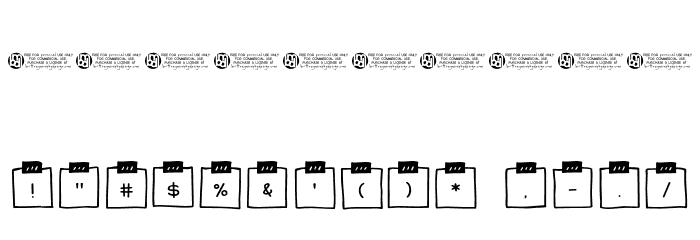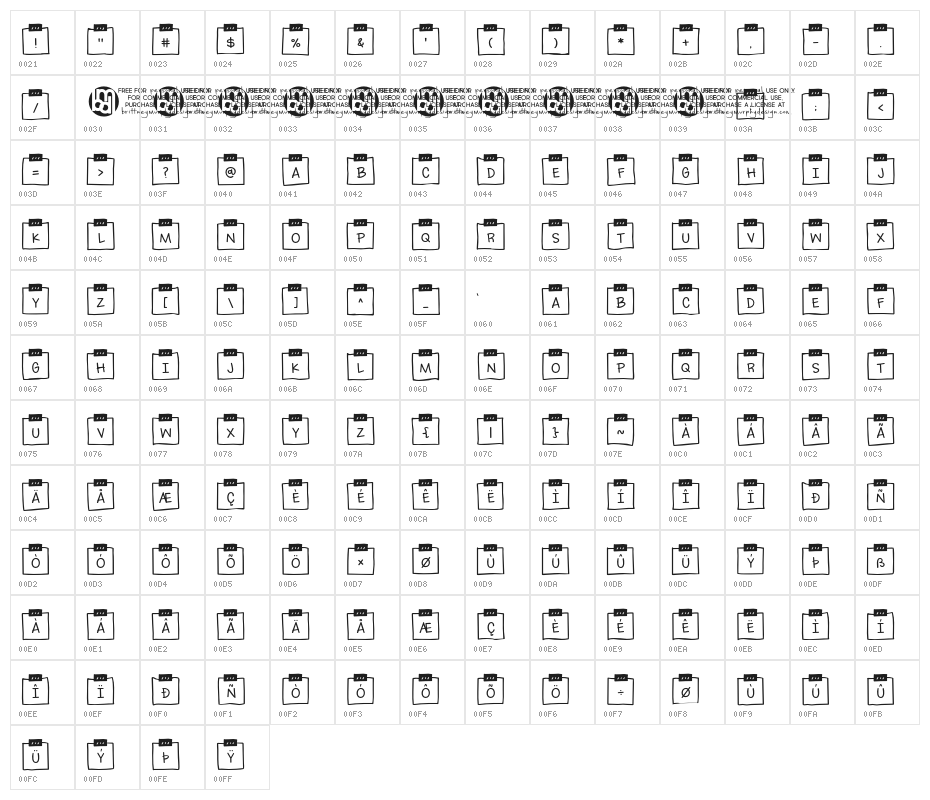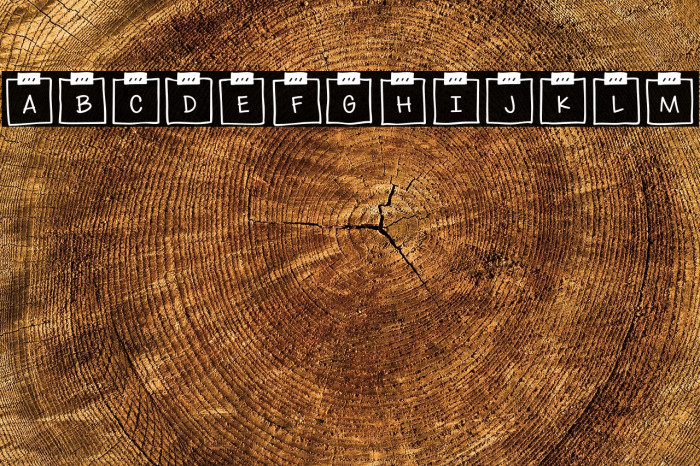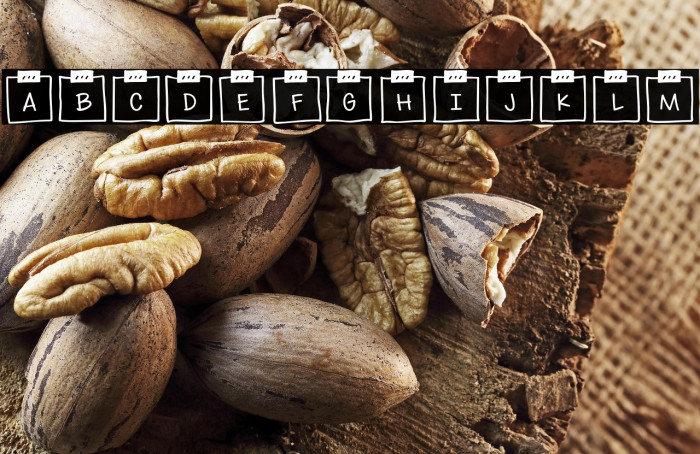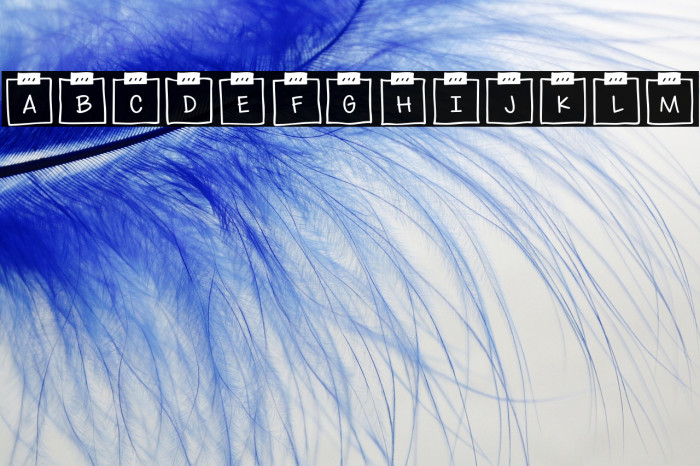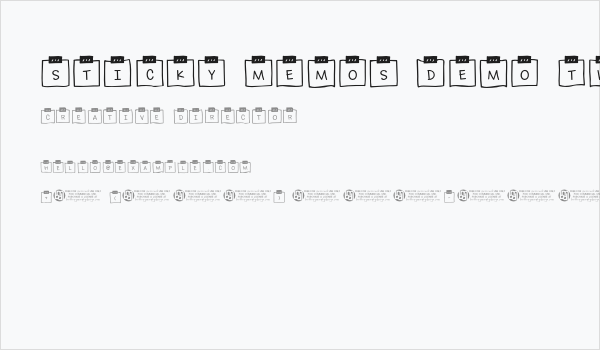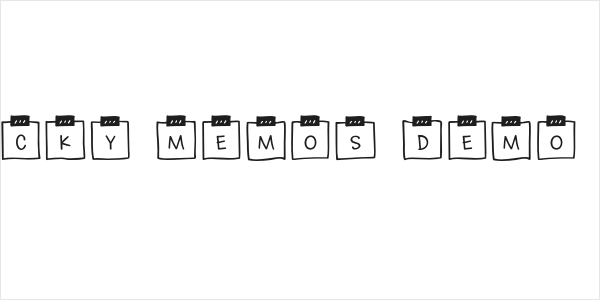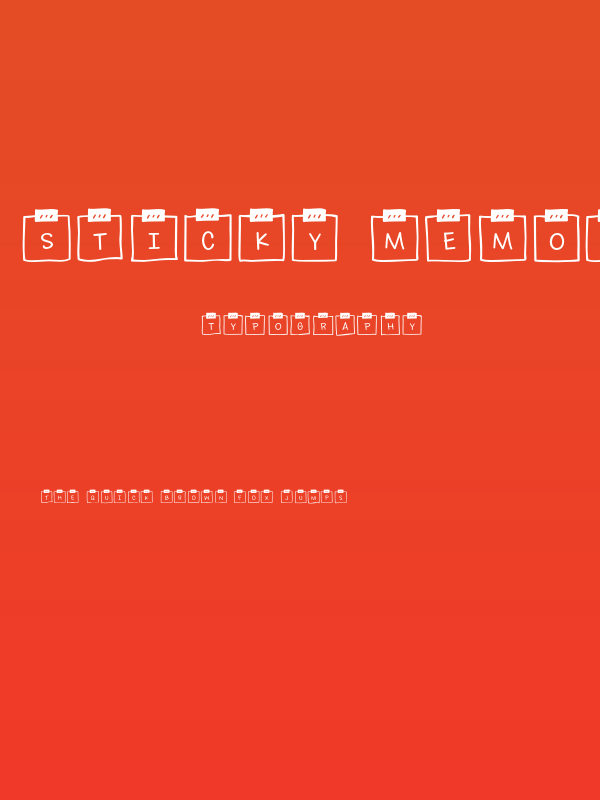
Sticky Memos Demo Two Font
Sticky Memos Demo Two Description
This playful and whimsical font features characters that appear to be written on sticky notes, each with a unique hand-drawn style. The letters are enclosed in square shapes with a small tab at the top, resembling a sticky note pad. The font has a casual and informal feel, making it ideal for projects that require a fun and approachable aesthetic. The characters are bold and easy to read, with a consistent thickness throughout, giving them a uniform appearance. The overall design is reminiscent of doodles or sketches, adding a personal touch to any text. The spacing between characters is normal, ensuring readability while maintaining the playful theme.
| Overall Style | Whimsical, Playful |
| Proposed Projects | Ideal for children's books, educational materials, playful branding, and creative social media graphics. |